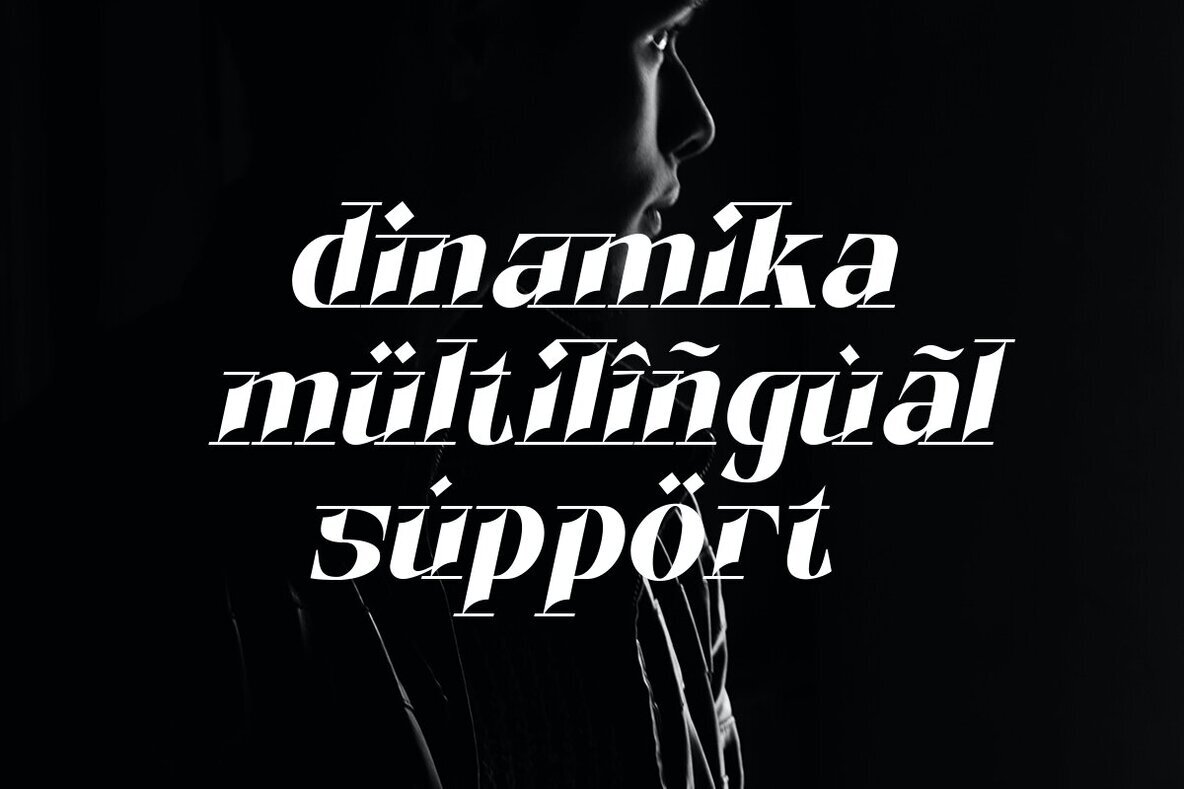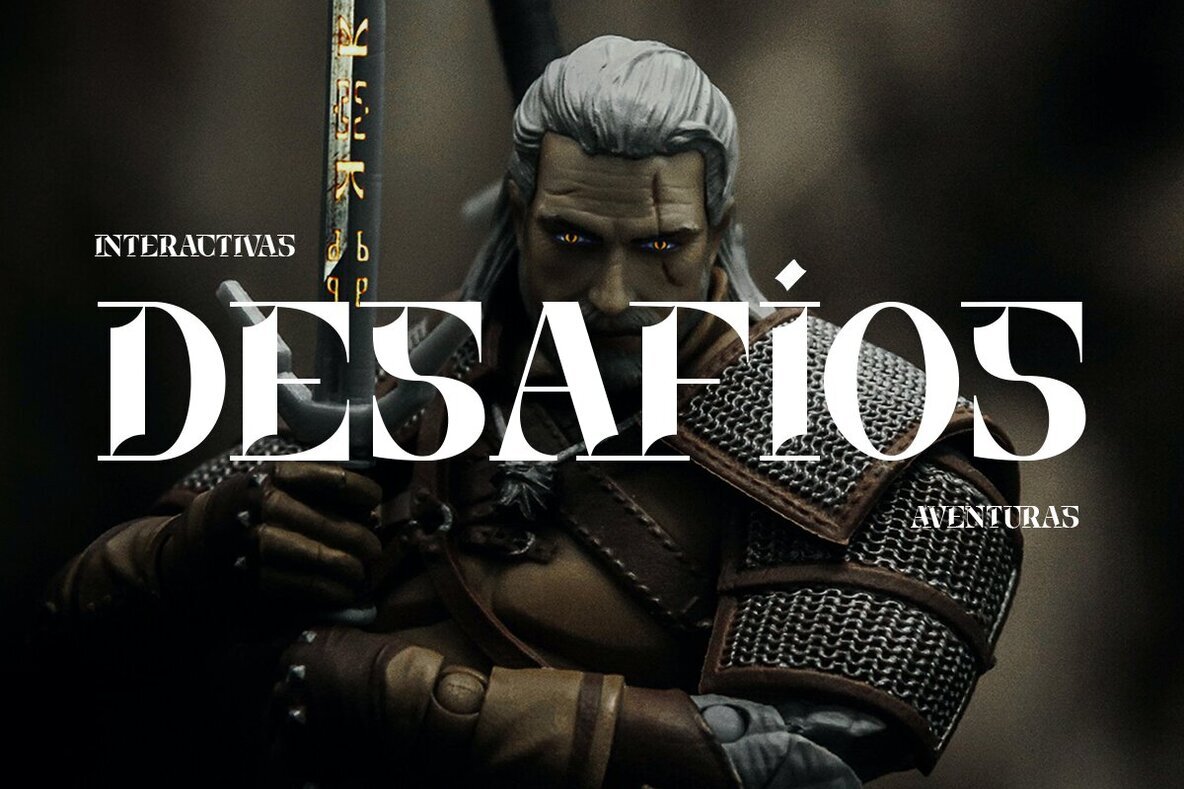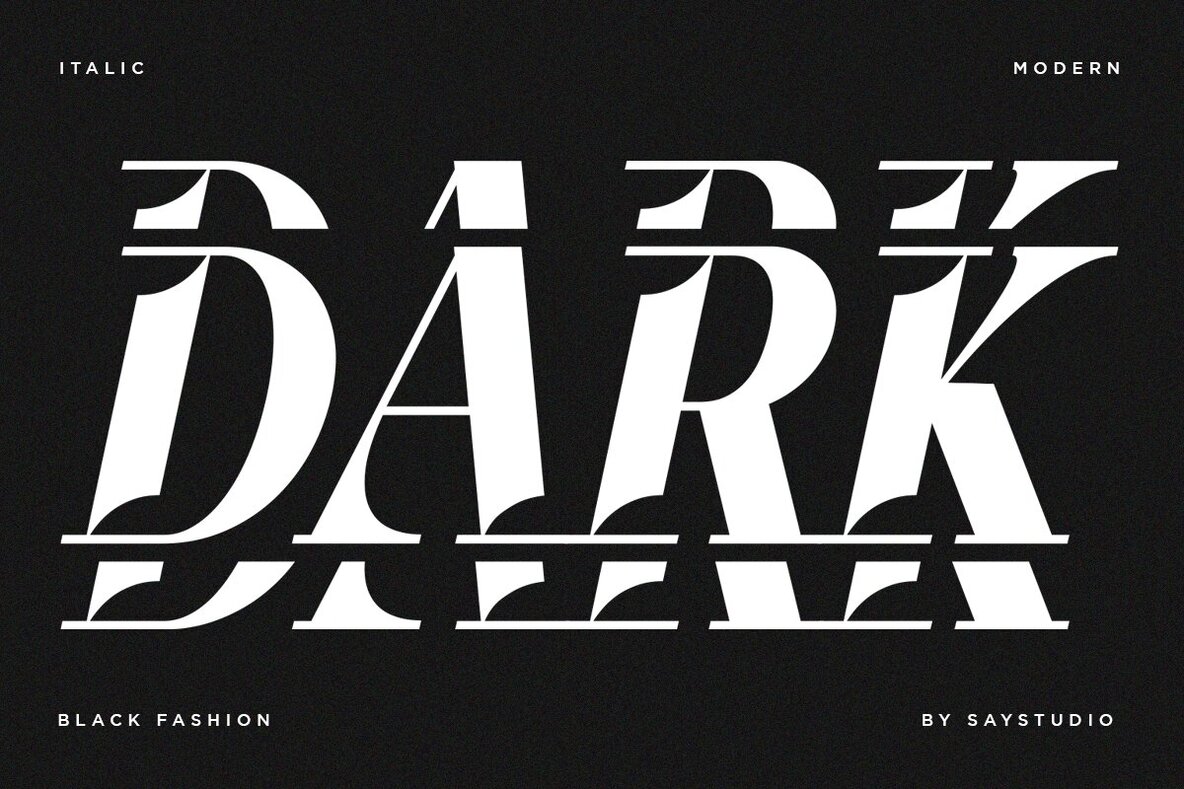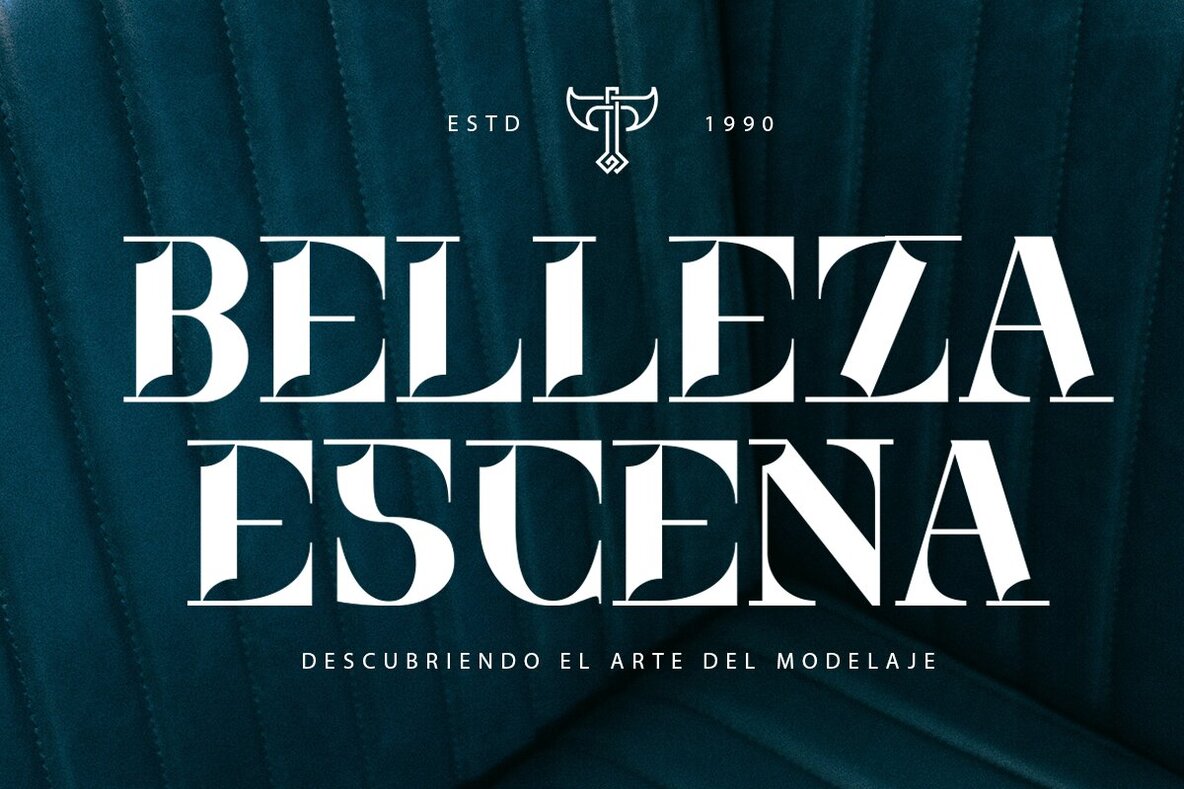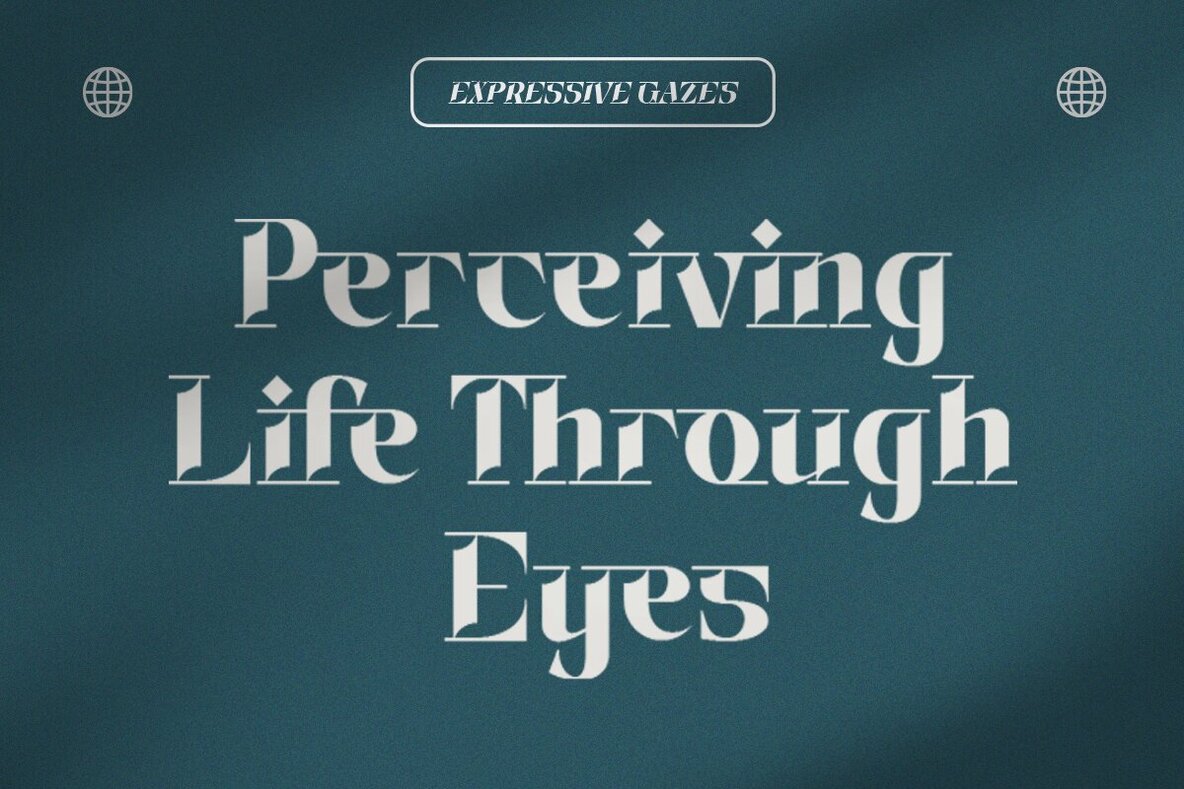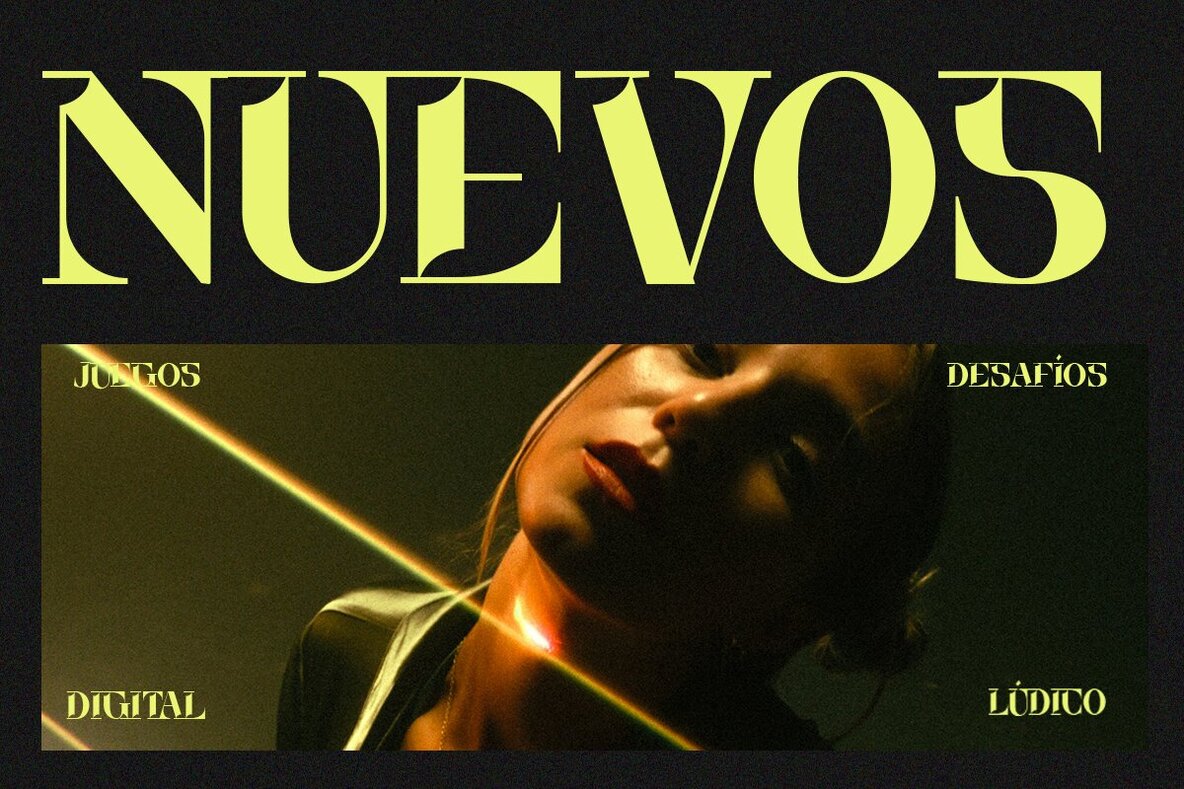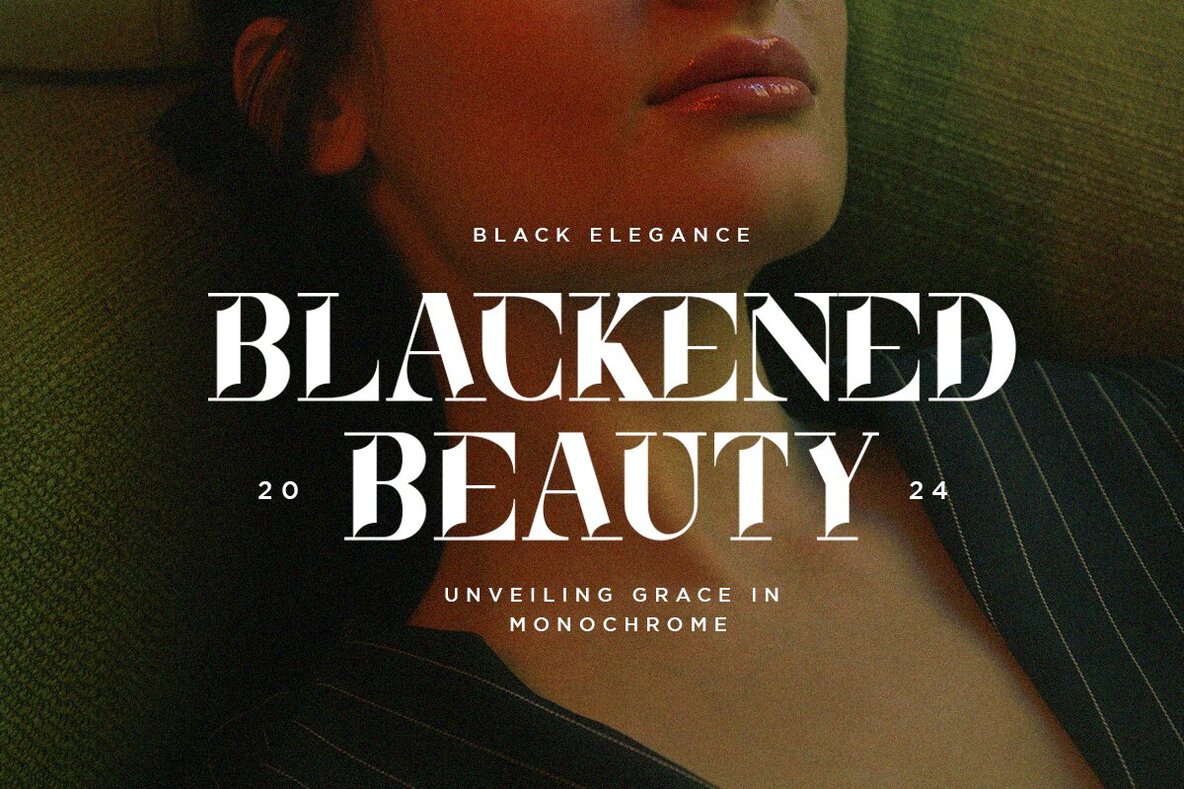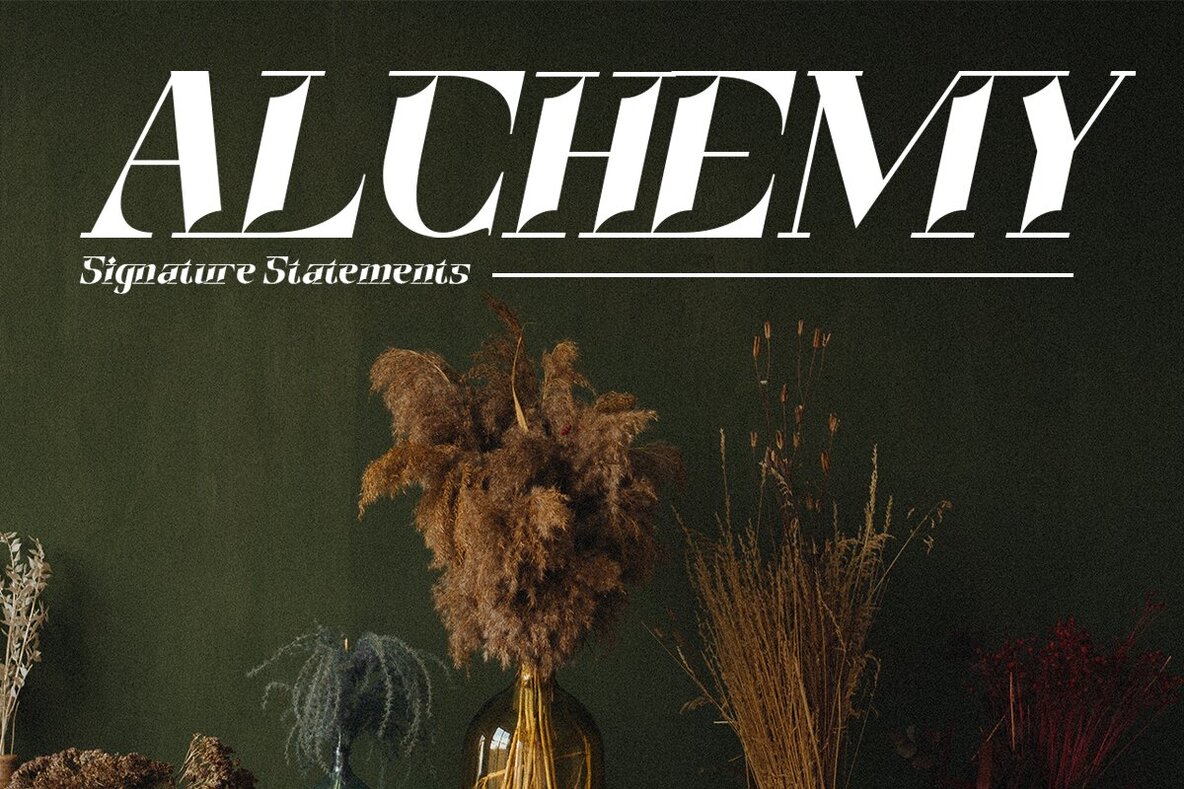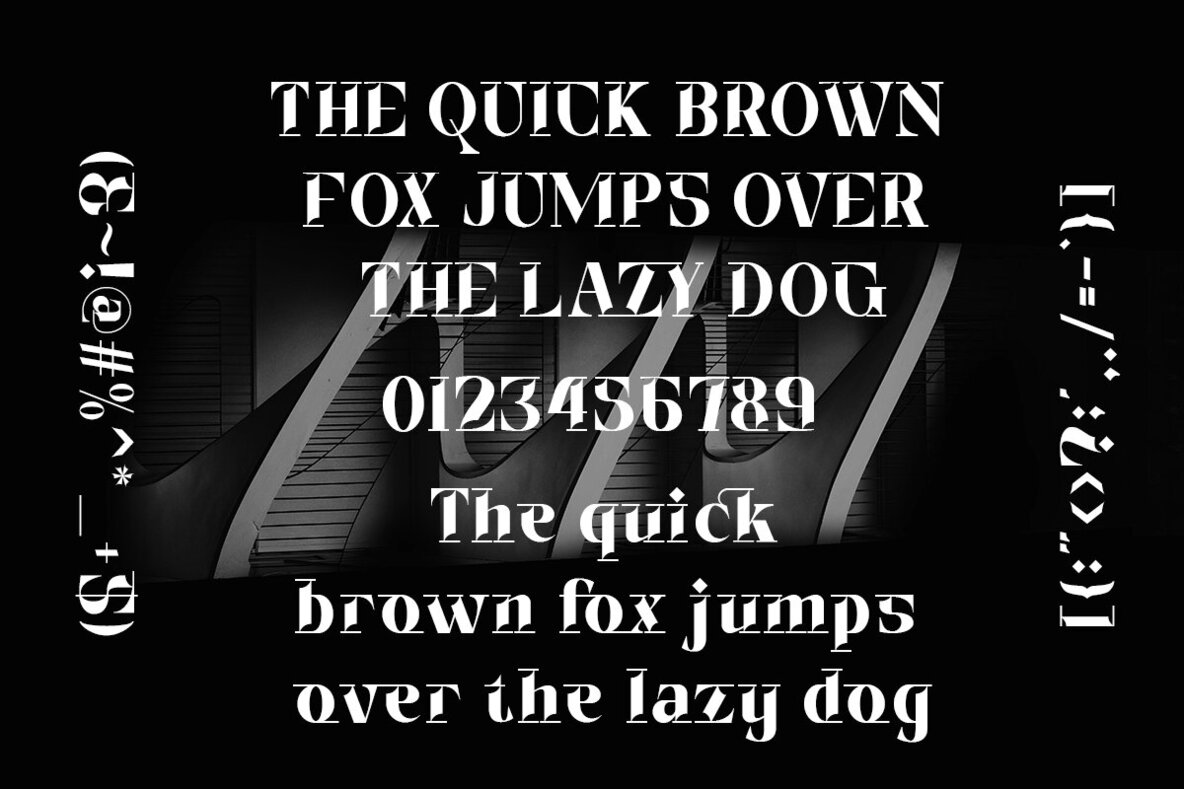
Dinamika Font
Dinamika is a modern display serif typeface that combines elegance with versatility. Featuring an italic version and well-crafted ligatures, it seamlessly adapts to various design needs. Whether for corporate identities, websites, publications, or advertising, Dinamika delivers sophistication and style.Dinamika: Sophisticated Display Serif Typeface